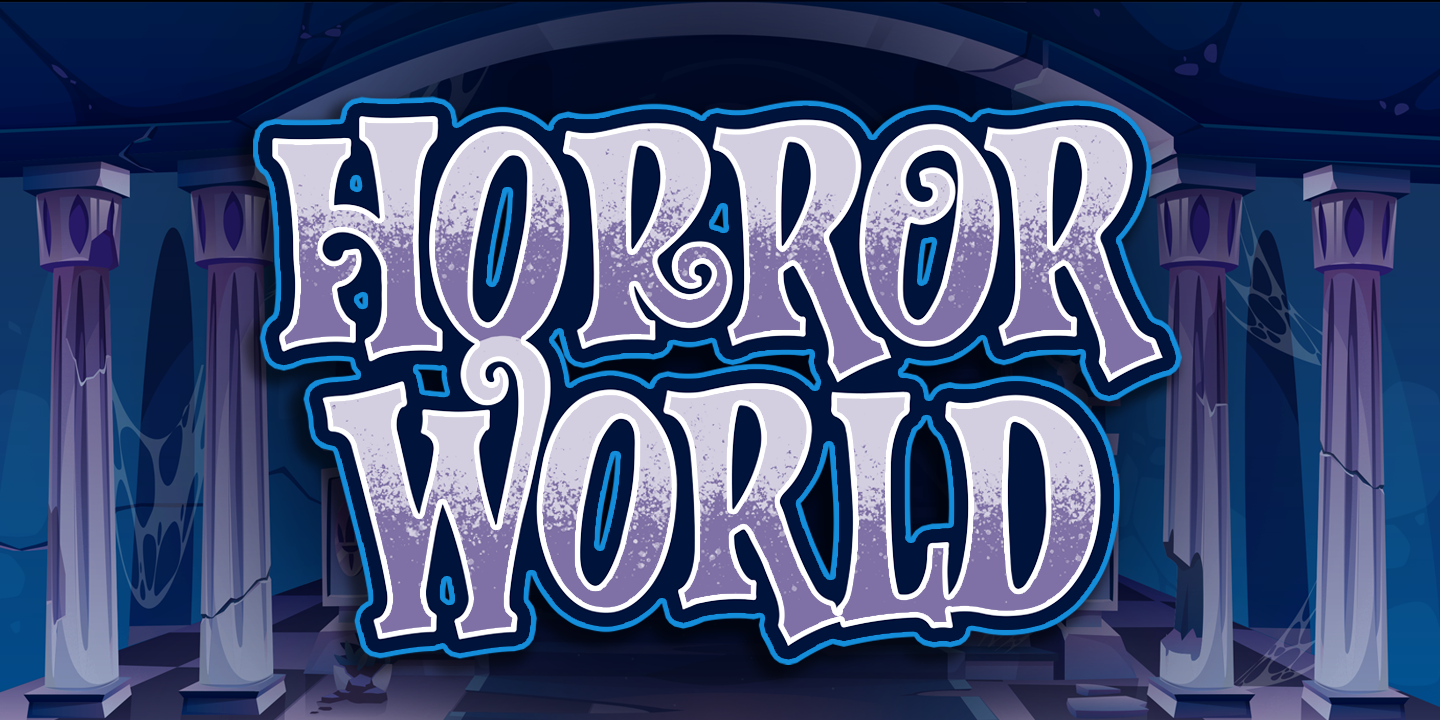
Horror World Font is perfect for horror movie posters, Halloween decorations, haunted house signage, gothic book covers, dark fantasy gaming graphics, spooky event invitations, horror-themed merchandise, and theatrical productions. Its menacing appearance makes it ideal for escape rooms, horror video games, dark metal band logos, and supernatural-themed marketing materials.
Horror World Font is exciting because it masterfully captures the essence of fear and supernatural terror through typography. This spine-chilling typeface combines jagged edges, distressed textures, and ominous letterforms that instantly evoke feelings of dread and mystery. The font's dramatic character makes it perfect for creators who want to deliver authentic horror aesthetics that send shivers down viewers' spines.
The Horror World Font family includes multiple terrifying variations: Regular, Distressed, Blood Drip, Shadow, and Nightmare versions. Each style maintains the font's signature horrifying character while offering different levels of visual intensity. The family also features special effects elements, decorative glyphs, and alternative characters that provide designers with comprehensive tools for creating truly frightening designs.
Horror World Font Free Download represents a breakthrough in horror-themed typography design. This exceptional typeface has been meticulously crafted to meet the demands of horror entertainment industry while maintaining maximum visual impact. Whether you're working on film productions, game development, or Halloween marketing campaigns, this font delivers unparalleled atmospheric terror.
The dark inspiration behind Horror World Font makes it particularly suitable for entertainment companies, haunted attractions, and horror content creators. Its menacing yet readable personality allows it to communicate fear effectively while maintaining legibility across various applications. The font's dramatic character supports projects that require both visual impact and functional performance.
Professional designers appreciate Horror World Font for its authentic horror aesthetic and versatility. The font performs exceptionally well in both large display applications and atmospheric text elements, making it an essential tool for horror-themed projects. Its distinctive letterforms support creative applications that demand genuine scary appeal.
The intimidating nature of Horror World Font makes it an ideal choice for establishing dark, mysterious atmospheres. Its powerful visual presence enhances horror communications while creating memorable experiences for audiences who seek thrilling, spine-tingling entertainment content.